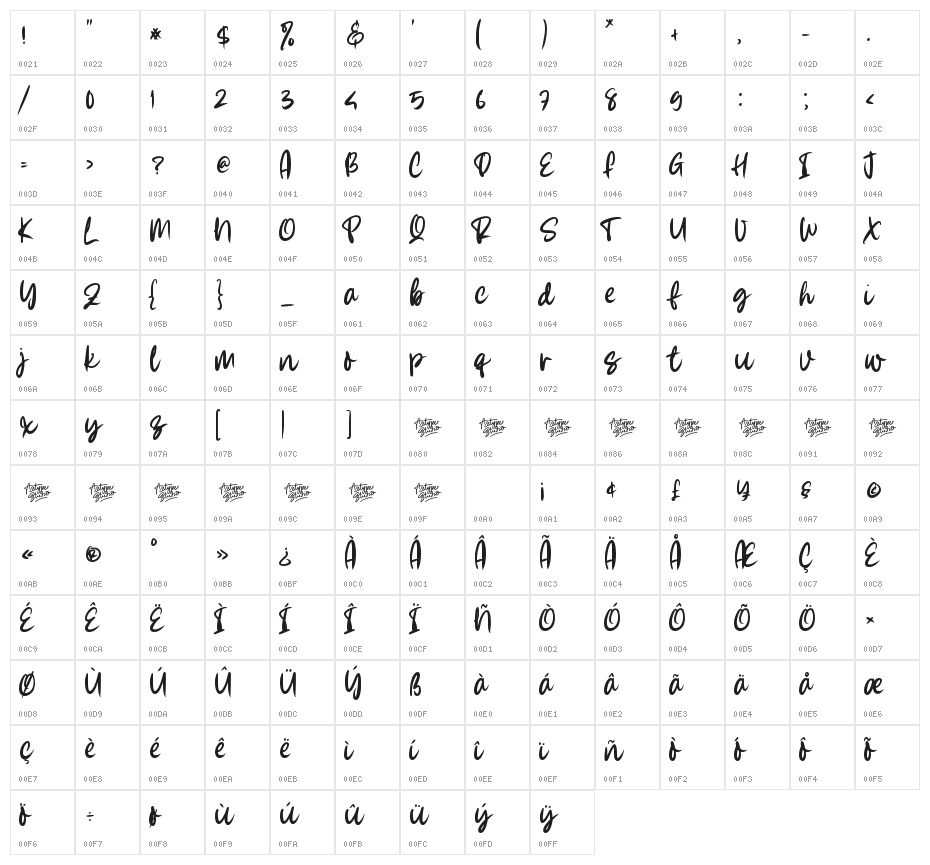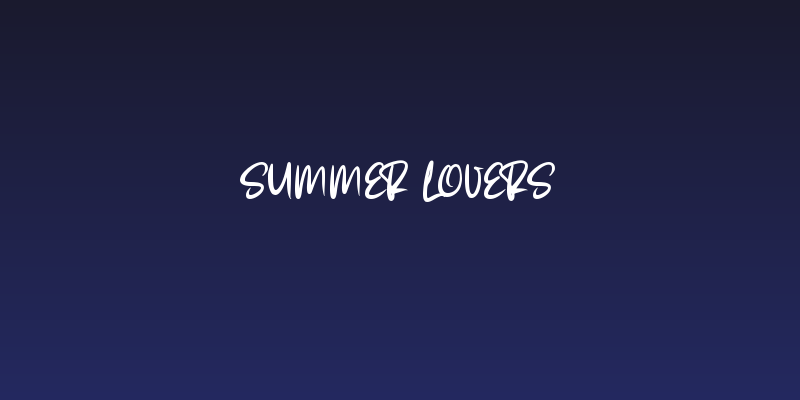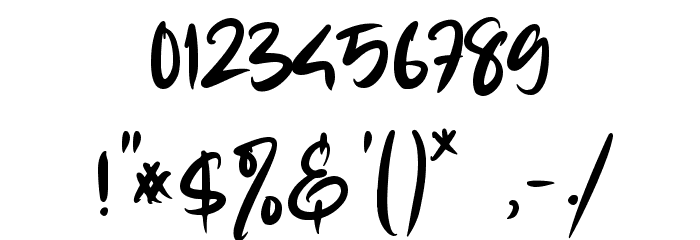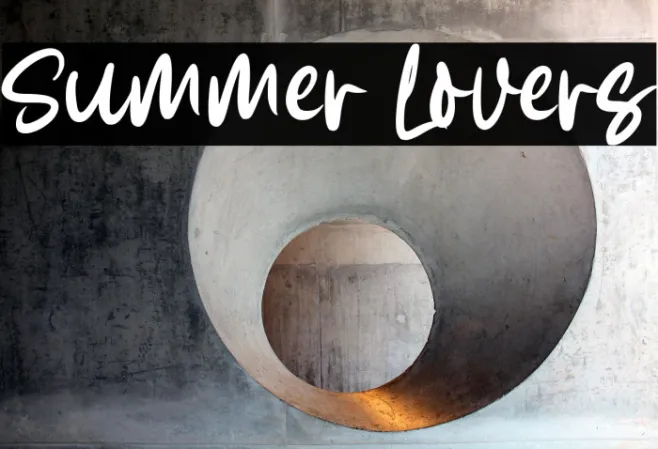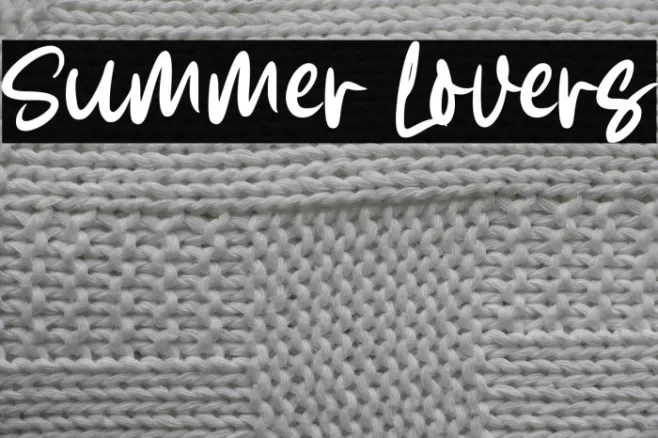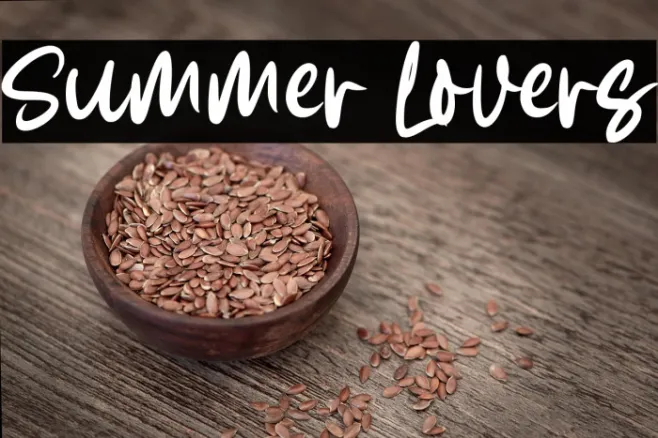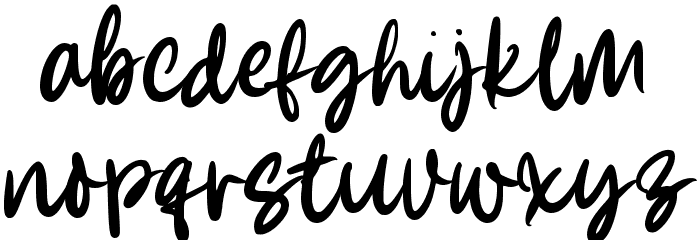
Summer Lovers Font
Summer Lovers Description
This font exudes a lively and energetic vibe, characterized by its bold, flowing script style. The letters are crafted with a sense of movement, giving it a handwritten appearance that is both casual and stylish. The uppercase letters are slightly larger and more pronounced, while the lowercase letters maintain a consistent flow, enhancing readability. Numbers and special characters are designed to match the playful and dynamic nature of the alphabet, ensuring a cohesive look across all text. The strokes are thick, providing a strong visual impact, and the overall design is well-suited for projects that require a personal touch or a sense of spontaneity.